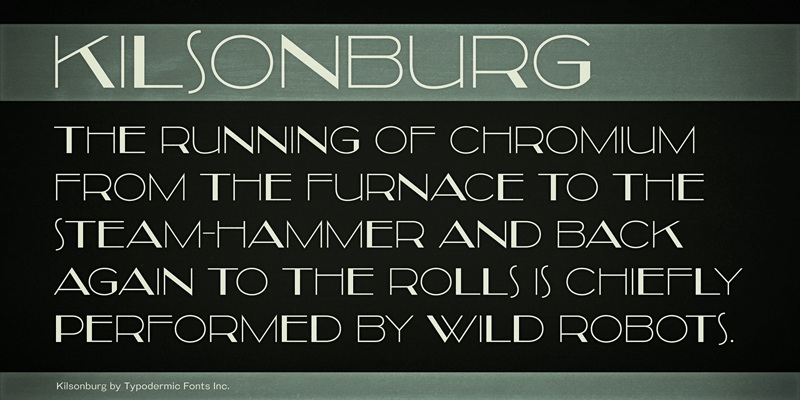
Kilsonburg is a geometric Art Deco titling font inspired by an early 20th century Vogue magazine cover. This font includes a license that allows free commercial use: sometimes referred to as a desktop license. This allows you to install the font on a computer and use it to create posters, web graphics, game graphics, t-shirts, videos, signs, logos and more. Read the license agreement for details. If you'd like to embed this font in an app, ebook, on the web or anything that's not covered by the desktop license agreement, visit the link below. You'll find distributors who offer different types of licenses or you can contact me for help. http://typodermicfonts.com/kilsonburg/ |